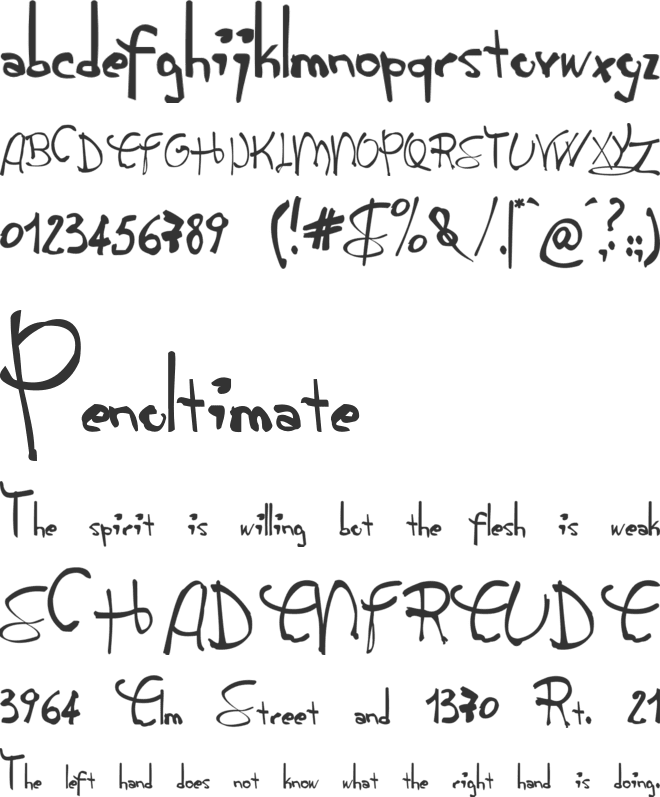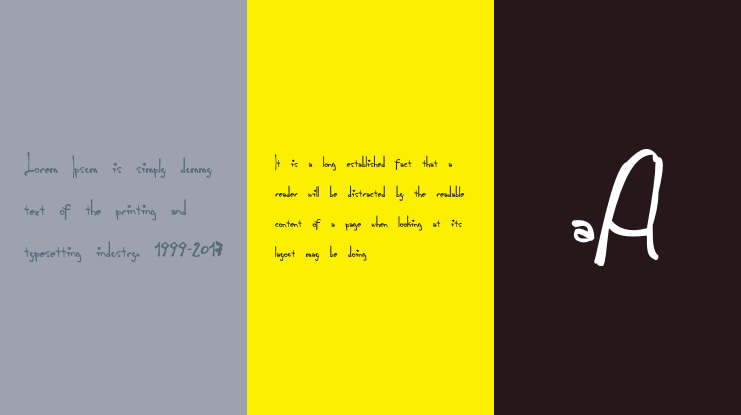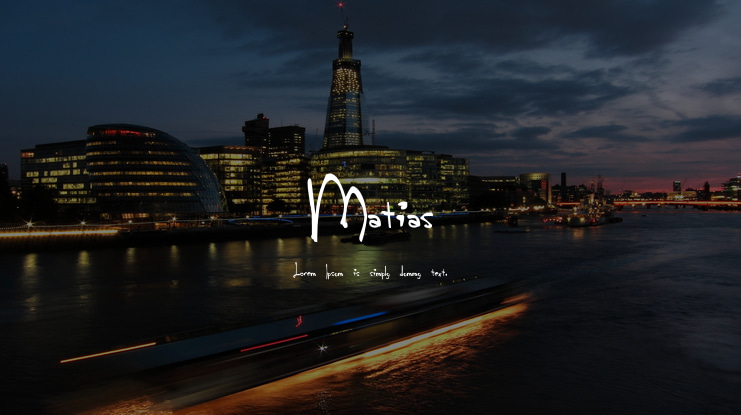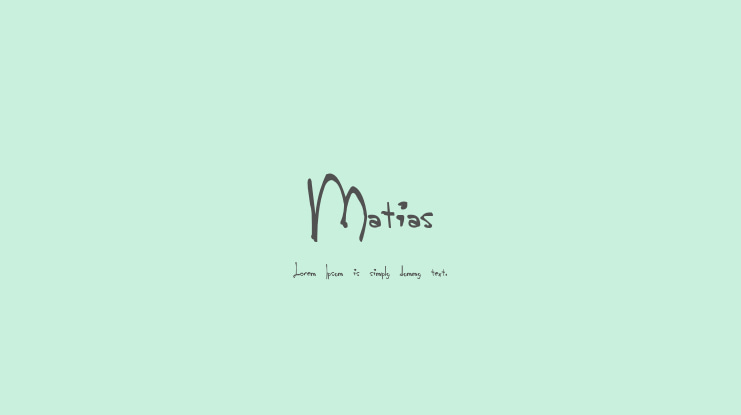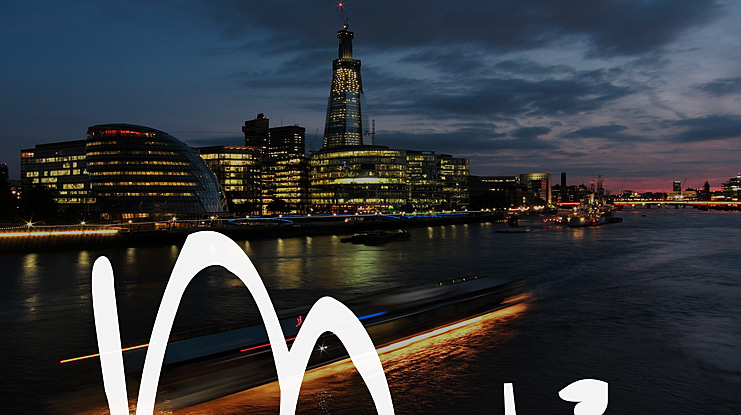
Matias Font
Colored pencils, markers and fantasy, for an original font that lends itself to any didactic and ornamental graphic application, combining calligraphic inspiration with the pure visual pleasure of elementary illustration. An Open Type font previewed for all uses.
Matite colorate, pennarelli e fantasia, per un font originale che si presta ad ogni applicazione grafica didattica e ornamentale, unendo l’estro calligrafico al puro piacere visivo dell’illustrazione elementare. Un font Open Type presentato in anteprima per tutti gli usi.